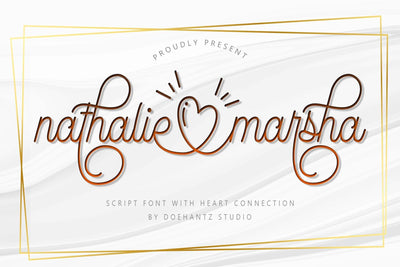
Nathalie Marsha
Introducing our latest product, Nathalie Marsha, is monoline script that connected with heart symbol between two words. This font has many alternative characters. The alternative characters were divided into several Open Type features such as Swash, Titl, and Stylistic Sets. The Open Type features can be accessed by using Open Type savvy programs such as Adobe Illustrator, Adobe InDesign, Adobe Photoshop Corel Draw X version, And Microsoft Word. And this Font has given PUA unicode (specially coded fonts). so that all the alternate characters can easily be accessed in full by a craftsman or designer.